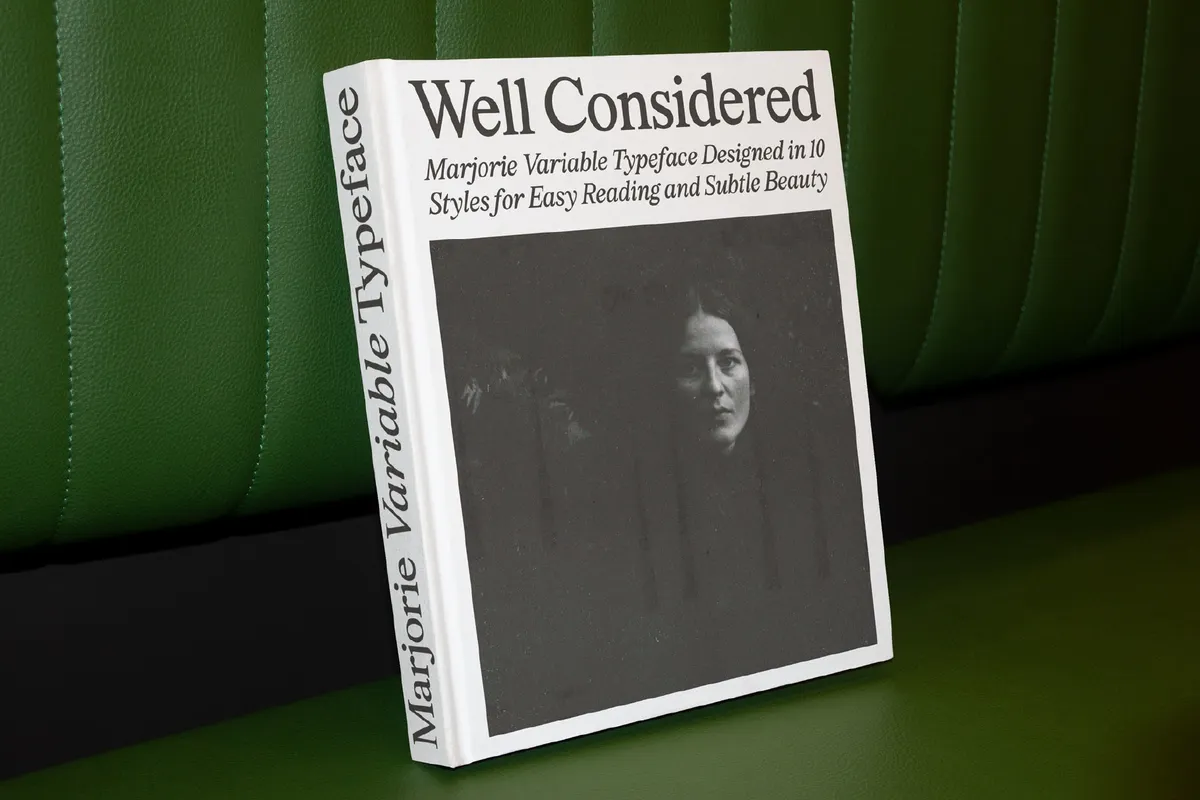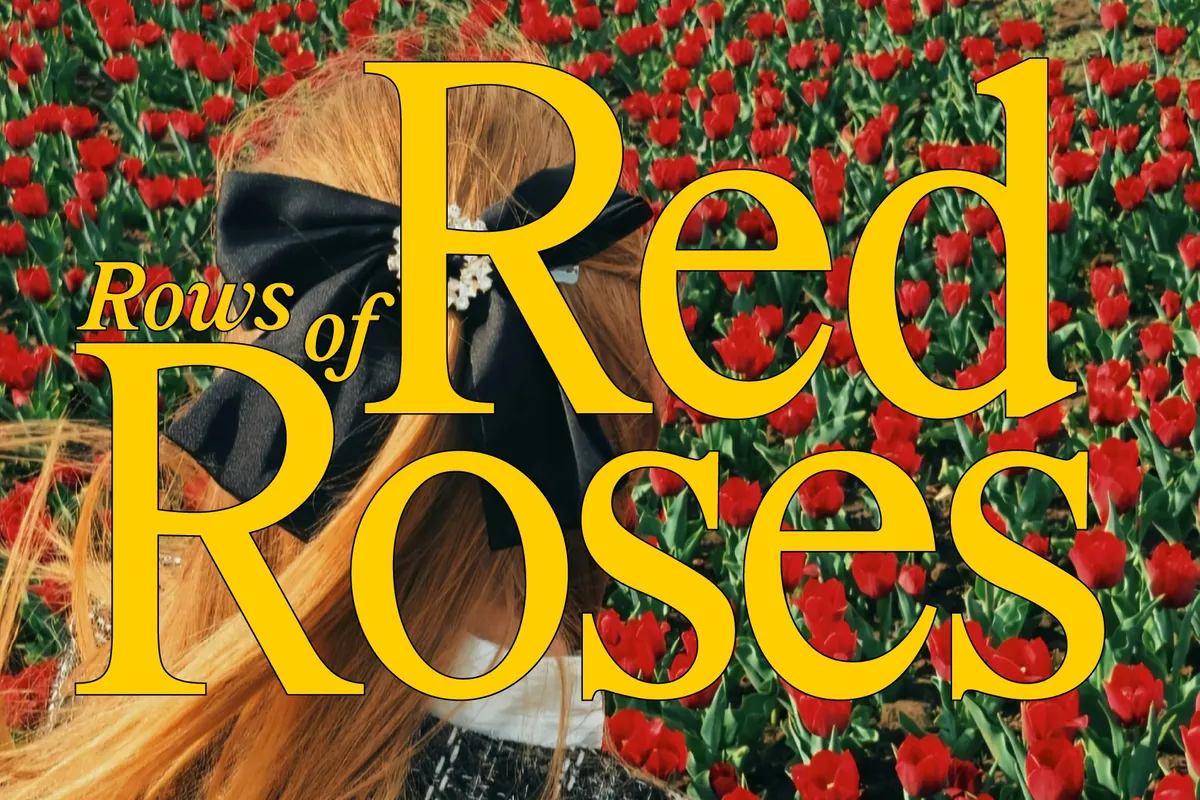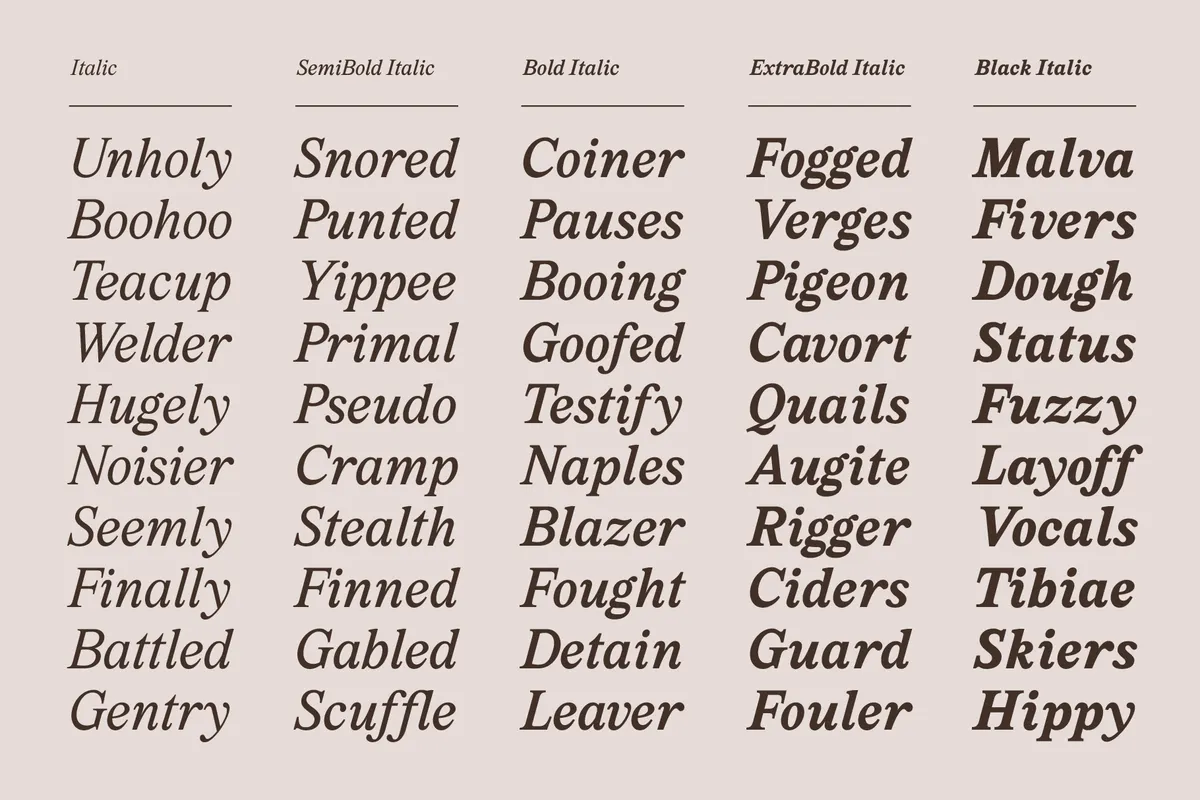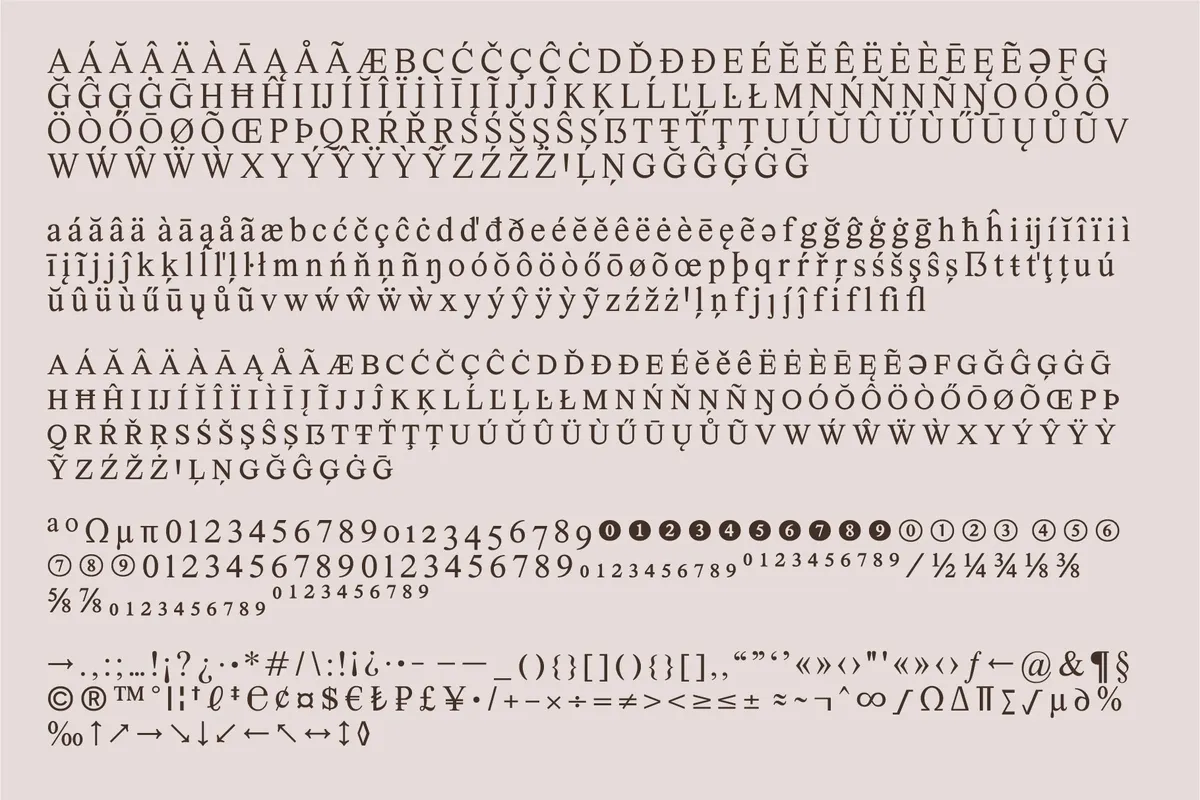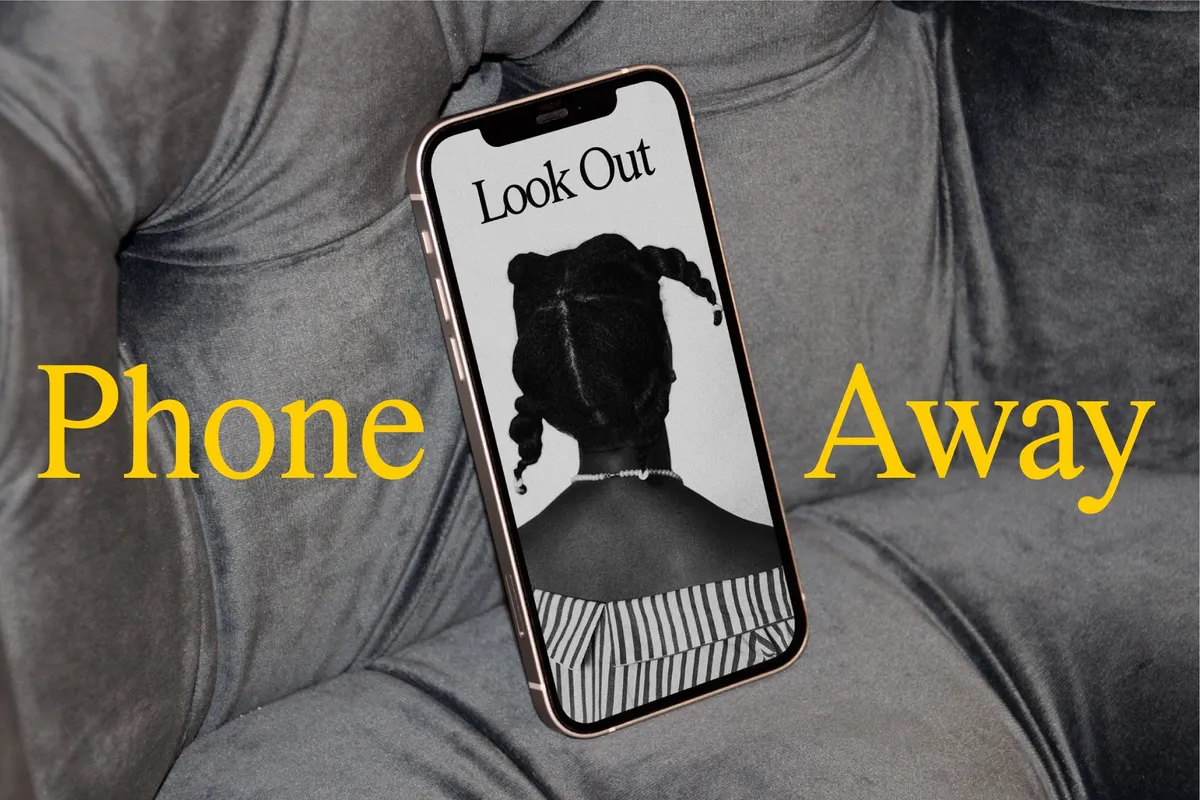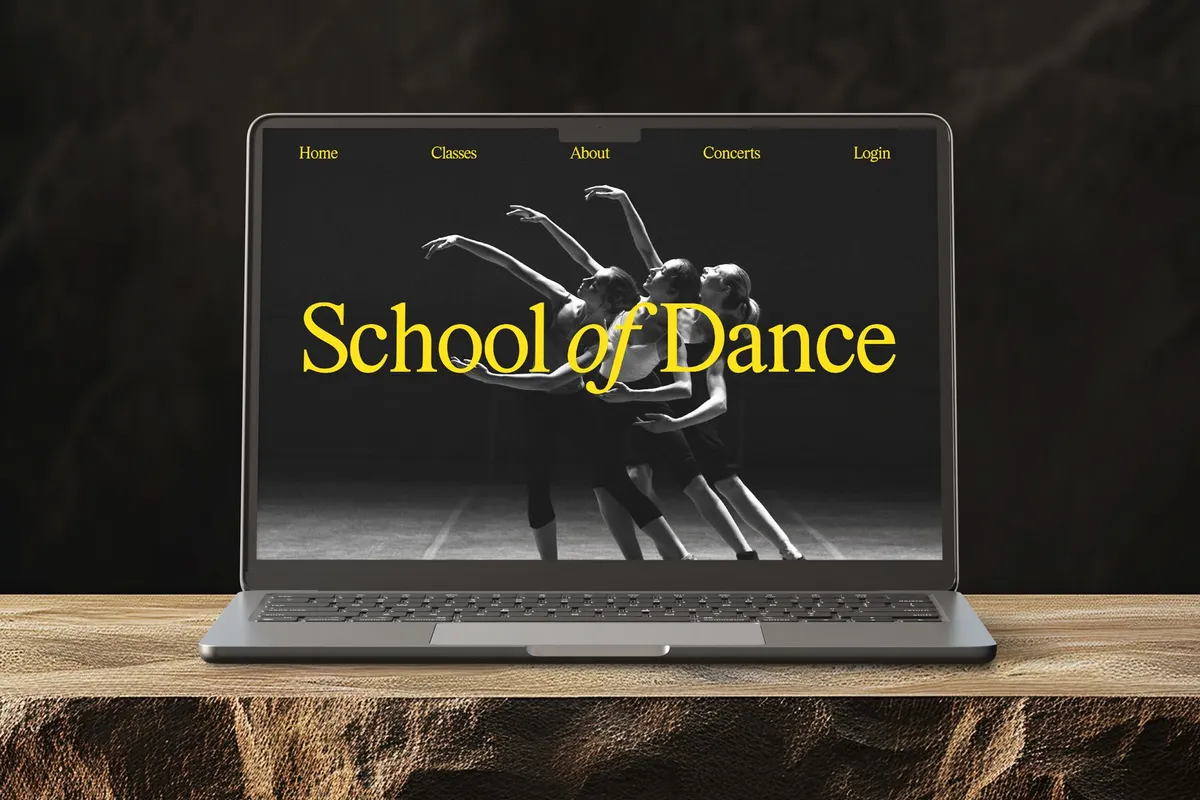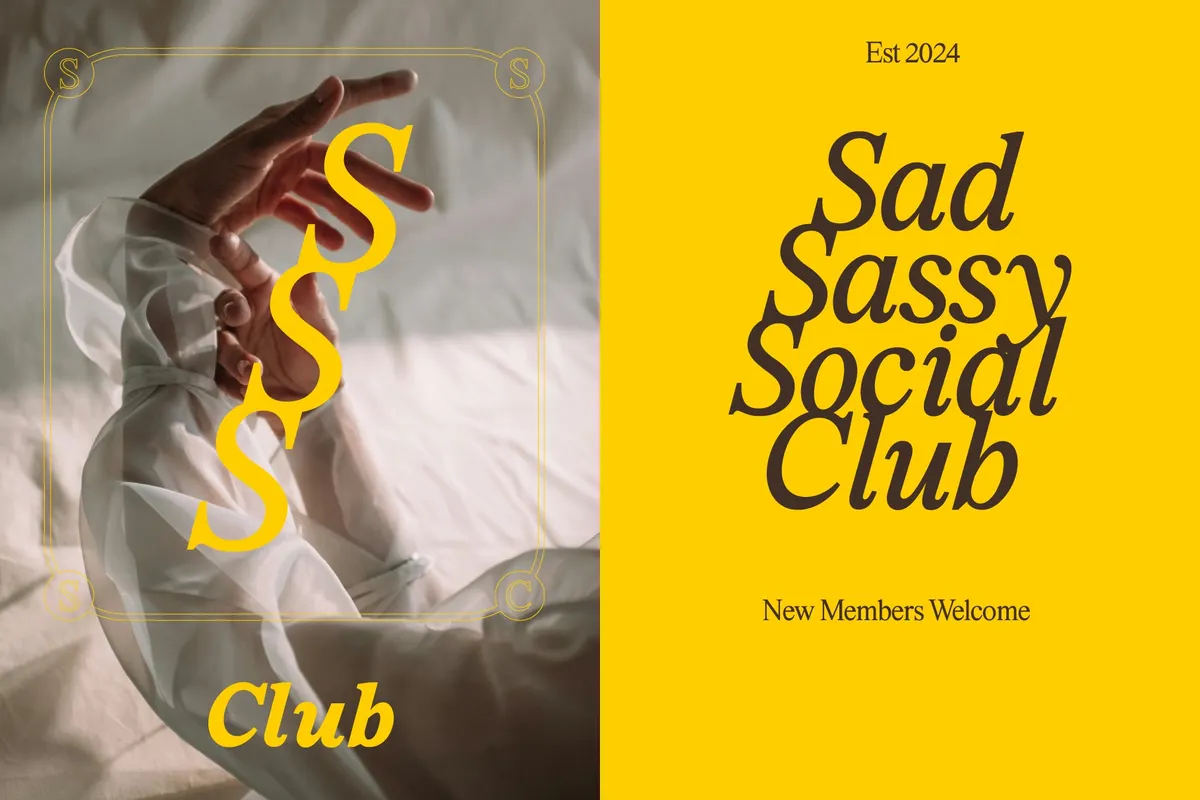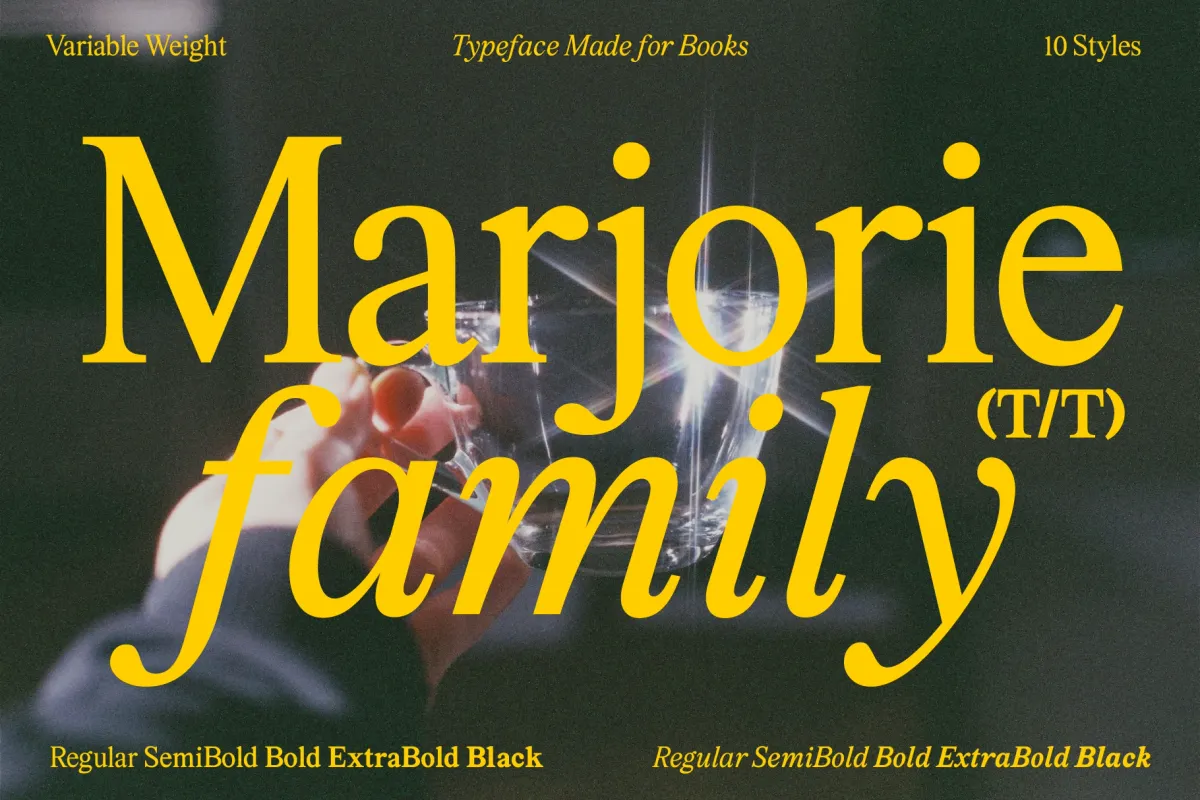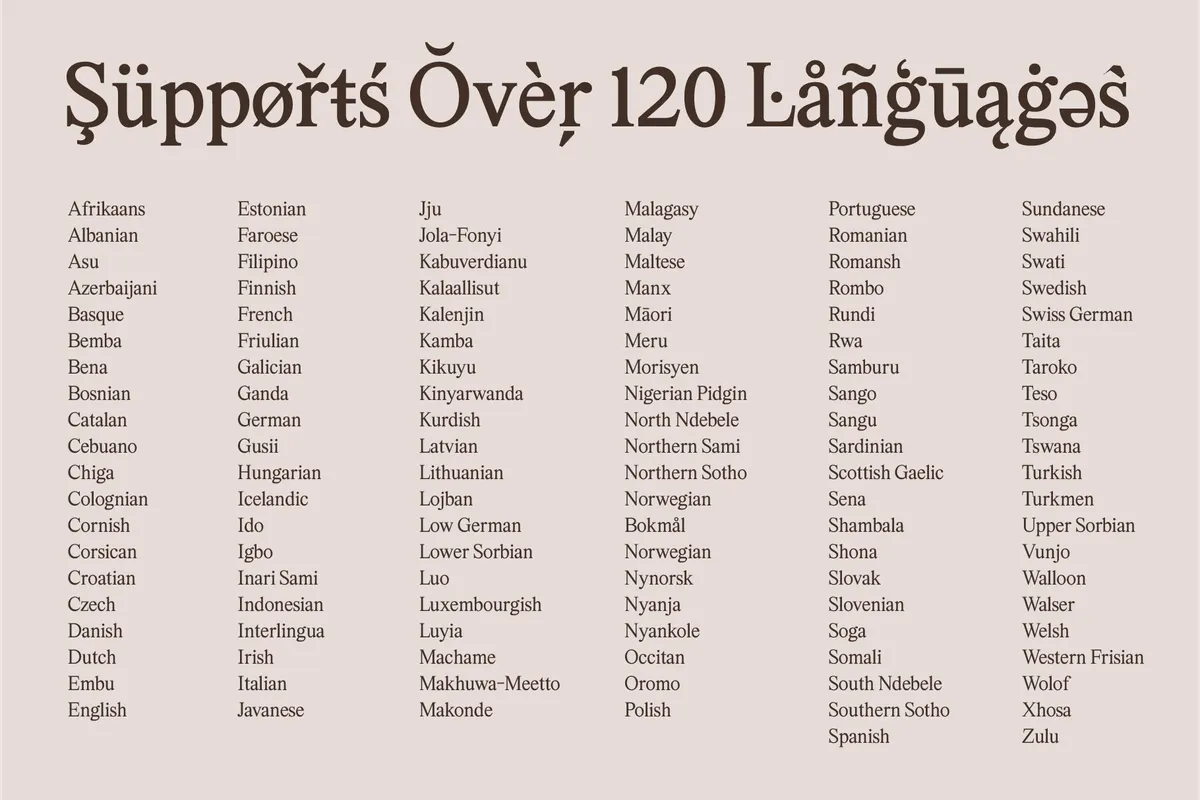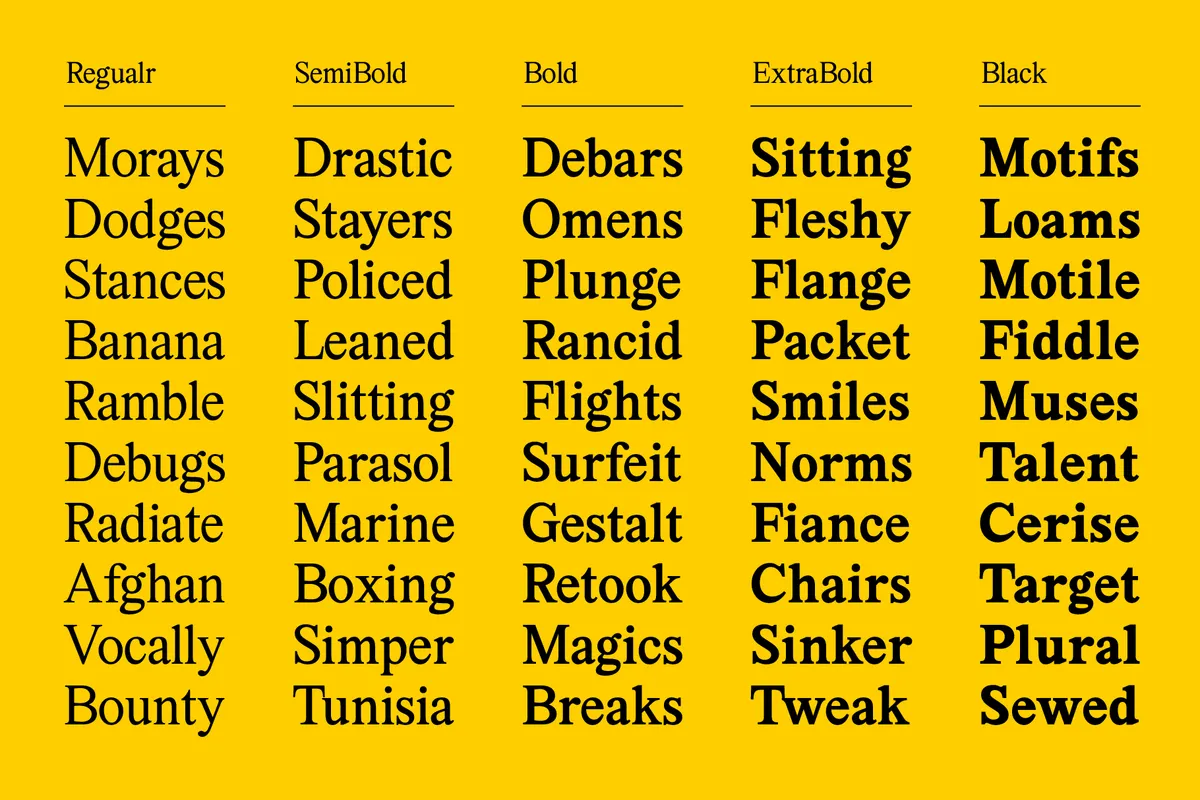
Marjorie - Elegant Serif Font Family
Marjorie is a serif family built for long-form reading, with a calm structure that keeps big blocks of text comfortable, not decorative. The serifs run light and the x-height sits generous, so paragraphs move at a steady pace across ten styles from Regular to Black. The italic swings into a looser, more calligraphic rhythm, so headers and captions can shift tone without breaking the page.
Five weights run from Regular to Black in both upright and italic, and two variable font files let the weight glide continuously between them for headline work or fine-tuned body copy. An alternate "G" brings a softer character option, and small caps, case-sensitive punctuation, and a full set of small numerals — superscript, subscript, and fraction forms — round out the toolkit for detailed editorial layouts. Use it for novels, editorial features, essays, cookbooks, and long-form web reading.
• 10 styles: from Regular to Black, and each has an Italic version;
• uppercase & lowercase;
• numerals, punctuation & symbols;
• ligatures, small caps, case-sensitive punctuation, numerals, old style & tabular figures;
• variable font files for Roman and Italic;
• support for 120+ languages